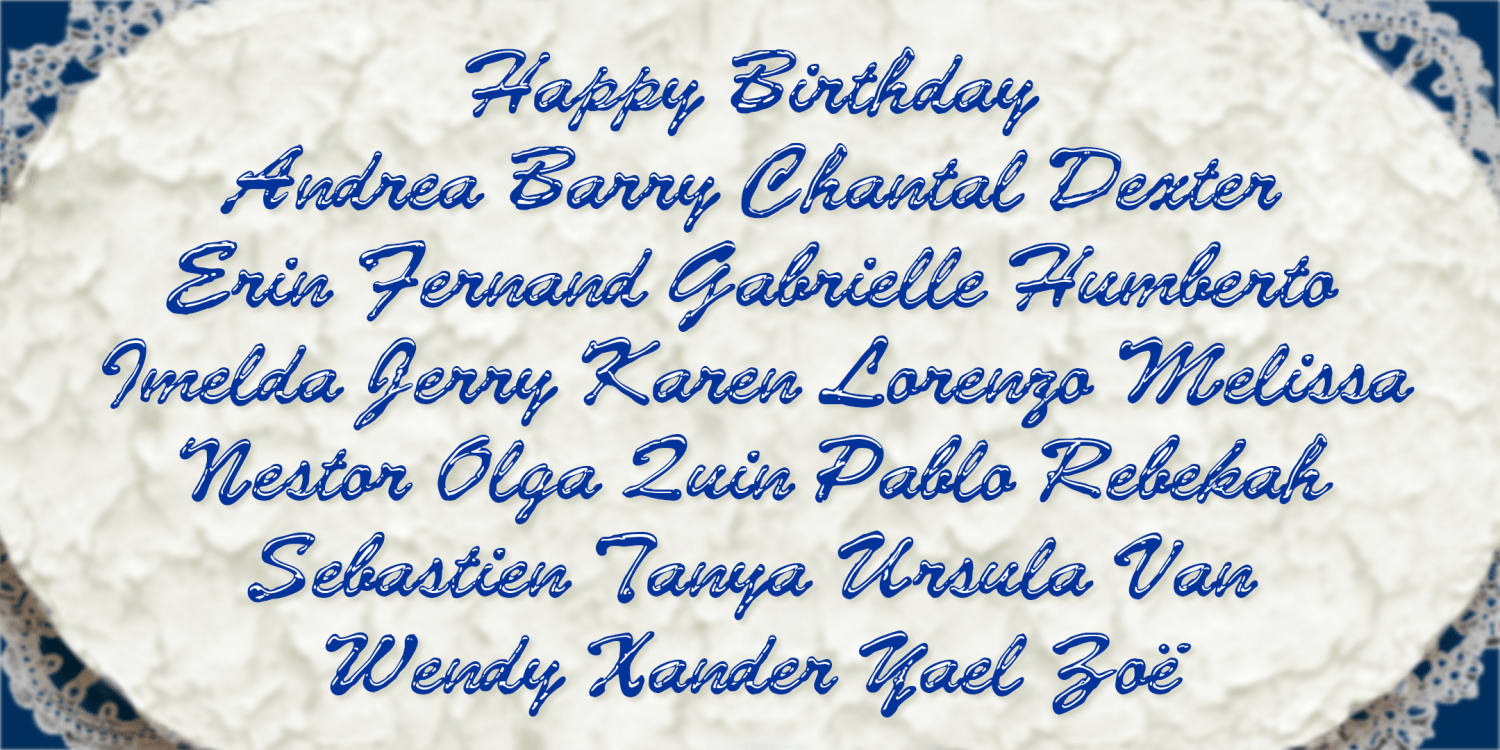
Bloop Script
Bloop Script was created to have the look of letters formed by puddles of shiny liquid. The general form of each was inspired by the classic font Brush Script (Robert E. Smith, 1942). Although I probably could have faked it in Photoshop, I actually drew all the letters with glossy 3-D acrylic paint, and then scanned it. The paint bottles have a definite tendency to bloop!